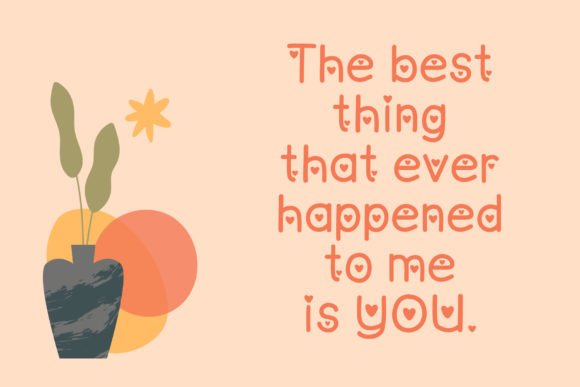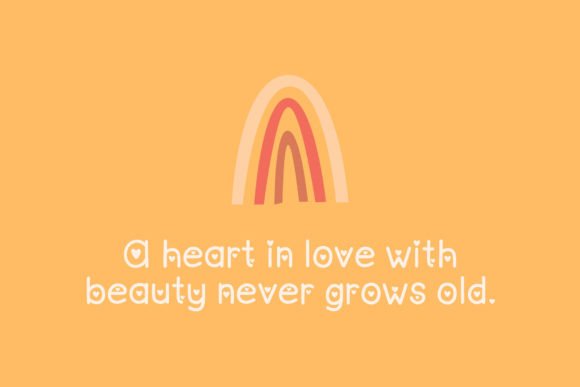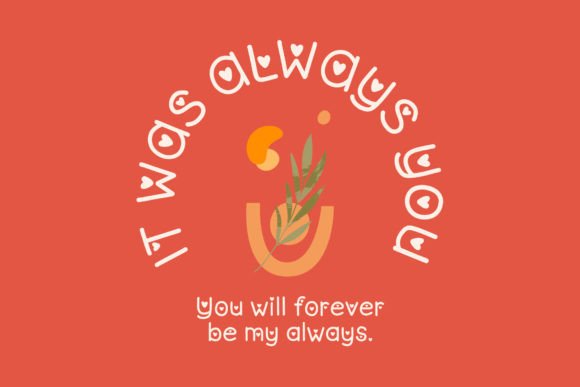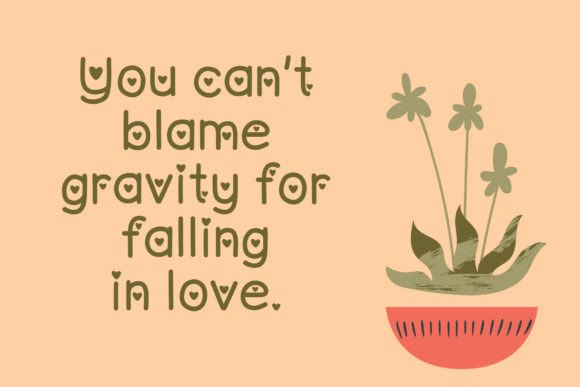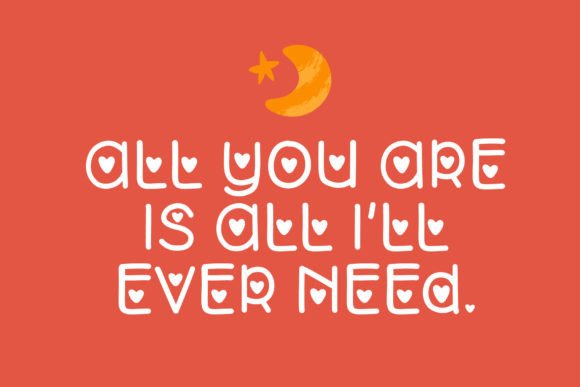
Hearts Notes Font: The Cutest Decorative Font to Elevate Your Creations
Are you a designer, crafter, or DIY enthusiast looking for a unique and adorable font to add a personal touch to your projects? Look no further than Hearts Notes Font! This charming decorative font is sure to capture your heart and become a valuable addition to your font collection.
The Charm of Hearts Notes Font
Hearts Notes Font is a beautifully designed font that features heart-shaped notes and letters, making it perfect for a variety of creative projects. Its whimsical and playful design is sure to add a touch of sweetness to any design, from handmade cards and invitations to digital graphics and crafts.
Why You’ll Love Hearts Notes Font
So, what makes Hearts Notes Font so special? Here are just a few reasons why you’ll fall in love with this adorable font:
- Cute and Playful Design: Hearts Notes Font features heart-shaped notes and letters that are sure to bring a smile to anyone’s face. Its playful design makes it perfect for projects that require a touch of whimsy and fun.
- Versatile and Easy to Use: This font is incredibly versatile and can be used for a wide range of projects, from digital graphics and social media posts to handmade crafts and DIY projects.
- Elegant and Sophisticated: Despite its playful design, Hearts Notes Font also has an elegant and sophisticated side, making it perfect for more formal projects, such as wedding invitations and announcements.
How to Use Hearts Notes Font
Hearts Notes Font is incredibly easy to use, even for those who are new to design and crafting. Here are a few ideas to get you started:
- Handmade Cards and Invitations: Add a personal touch to your handmade cards and invitations with Hearts Notes Font. Use it to write out messages, titles, or even create custom envelopes.
- Digital Graphics and Social Media: Use Hearts Notes Font to create adorable digital graphics, social media posts, and stories that are sure to delight your followers.
- Crafts and DIY Projects: Add a touch of personality to your crafts and DIY projects, such as scrapbooking, journaling, and home decor.
Tips and Tricks for Working with Hearts Notes Font
Here are a few tips and tricks to help you get the most out of Hearts Notes Font:
- Experiment with Colors and Textures: Don’t be afraid to experiment with different colors and textures to add depth and interest to your designs.
- Mix and Match with Other Fonts: Hearts Notes Font pairs well with a variety of other fonts, so don’t be afraid to mix and match to create unique and interesting combinations.
- Use it for Titles and Headlines: Hearts Notes Font is perfect for titles and headlines, so use it to add a touch of personality to your designs.
Hearts Notes Font is a truly special font that is sure to capture your heart and become a valuable addition to your font collection. Its cute and playful design, versatility, and ease of use make it perfect for a wide range of creative projects. Whether you’re a designer, crafter, or DIY enthusiast, Hearts Notes Font is sure to elevate your creations and add a touch of personality to your designs.
Get Ready to Fall in Love with Hearts Notes Font